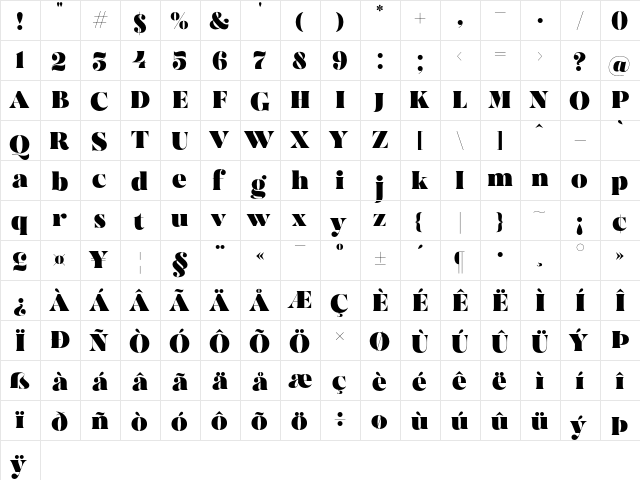
MADE Bruno Regular
| Foundry | MadeType |
| Designer | MadeType |
Design Context for MADE Bruno Typeface
MADE Bruno is a composed and adaptable typeface that performs quietly and consistently across a wide range of design contexts.